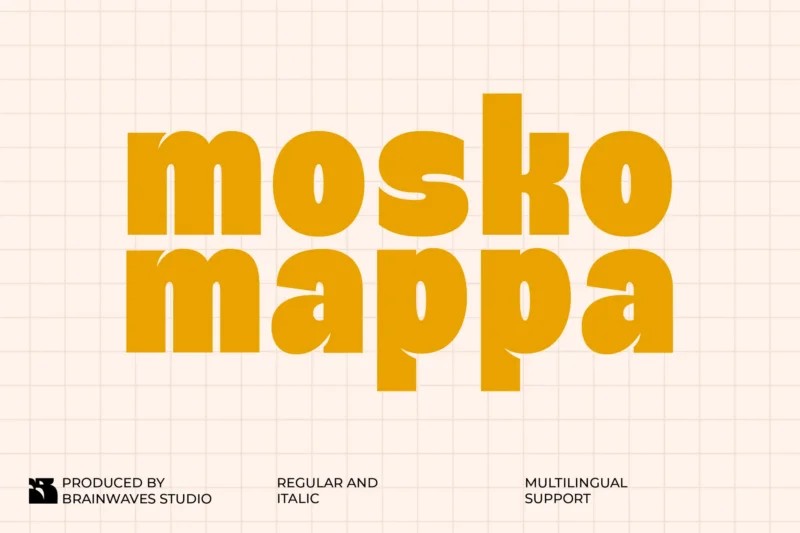
Mosko Mappa Sans
Say hello to Mosko Mappa Now—a chunky, cheeky, and full-of-character display font built to bring instant energy and joy to your designs. With its retro pop culture vibes, bold rounded edges, and playful shadow details, Mosko Mappa Now feels right at home in logos, food packaging, children’s books, stickers, merch, and funky web headers.
This updated version includes Regular & Italic styles, enhanced multilingual support, and fresh new glyphs to give your design projects the punch they deserve. Whether you’re branding a burger joint, making vinyl stickers, or designing colorful kids’ campaigns, Mosko Mappa Now delivers with flavor.